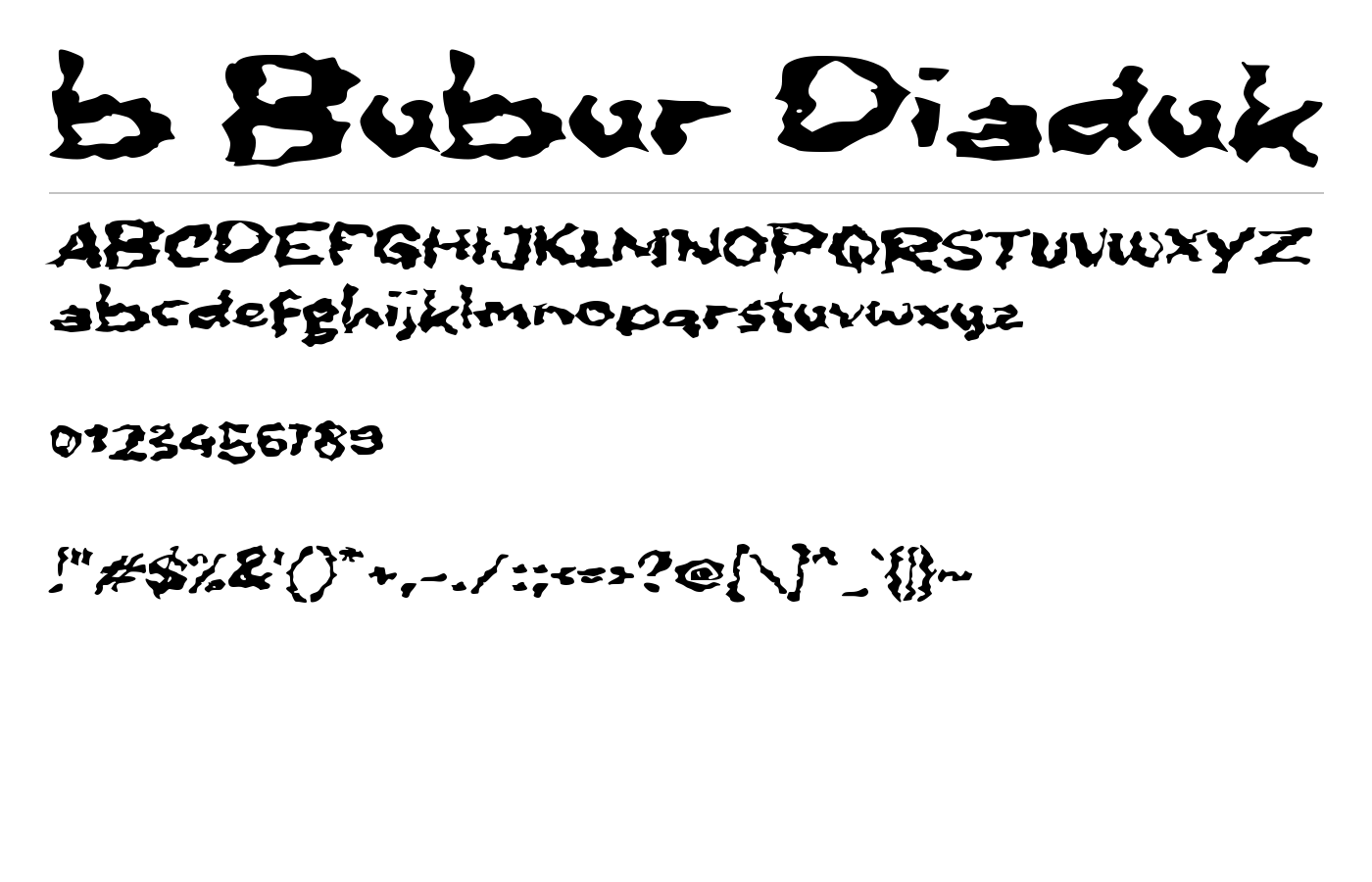
Bubur Diaduk is a highly textured, playful display font with an irregular, hand-crafted feel resembling rough brush strokes or splattered ink. Its uneven shapes and quirky details give it an energetic, bold personality perfect for creative and informal designs, making it ideal for eye-catching headlines, posters, and artistic branding. This font’s unique, expressive style works best where a vibrant, unconventional look is desired.
b Bubur Diaduk Font
About b Bubur Diaduk Font